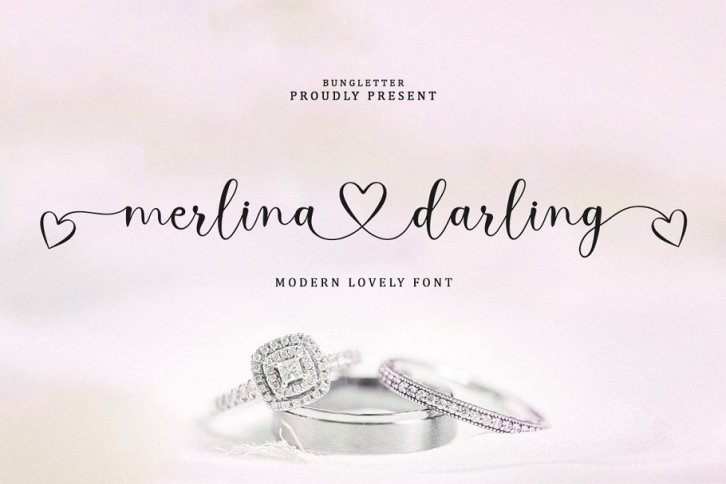
Merlina Darling is one of the modern calligraphy script fonts that comes with a beautiful style that connects in the middle of the heart, designed with high detail to present a luxurious style.
Merlina Darling includes a complete set of beautiful upper and lowercase letters, numbers, punctuation, binding and multilingual. All lowercase letters include the start and end of the swash, giving it a luxurious handwritten style. Classic styles are very suitable to be applied in various formal forms such as invitations, labels, restaurant menus, logos, fashion, make up, stationery, novels, magazines, books, greeting / wedding cards, packaging, labels or all kinds of your needs. . . .
-Has a connecting heart style in the middle.
-Has a start and end swash style.